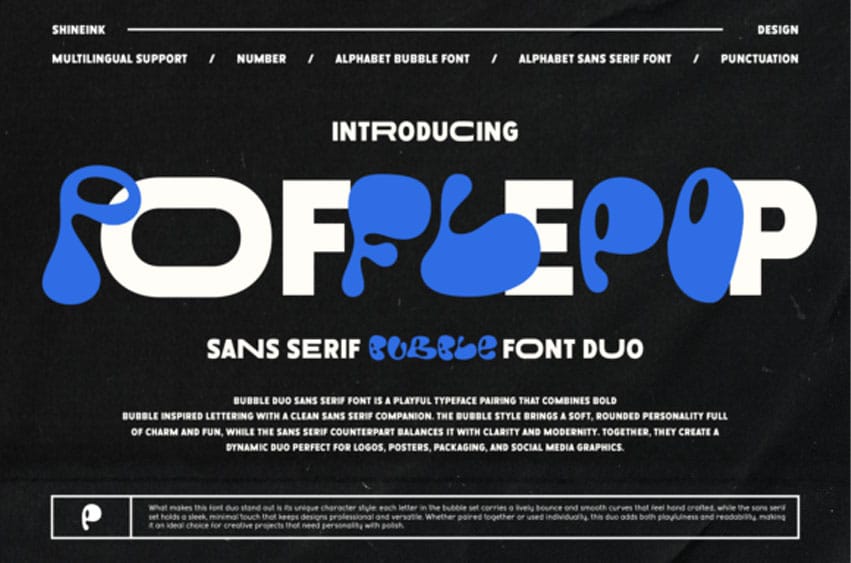
Pofflepop Font: Bring a touch of fun, modern charm, and bold personality to your designs with Pofflepop, a unique typeface duo that perfectly blends a playful bubble style with a clean sans serif companion.
Pofflepop is a versatile and dynamic font duo designed to make any creative project stand out. From logos, posters, and packaging to social media graphics and branding, this font adds a lively, eye-catching feel without sacrificing readability.